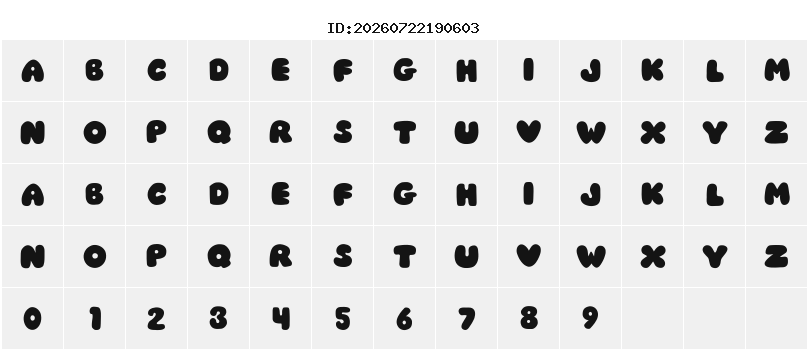
JI Chubby Caps Preview
• Font Name: JI Chubby Caps
• Font Style: JI Chubby Caps
• Full Font Name: JI Chubby Caps
• Designer: Jeri Ingalls
About JI Chubby Caps.ttf
JI Chubby Caps.ttf is a modern, elegant sans-serif font designed for ultimate readability and visual harmony. Perfect for branding, headlines, web design, and print materials.